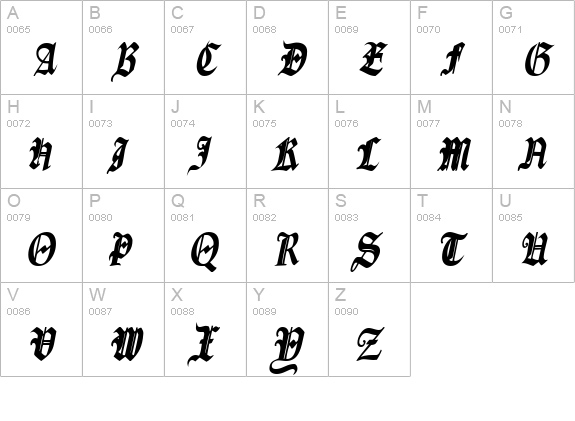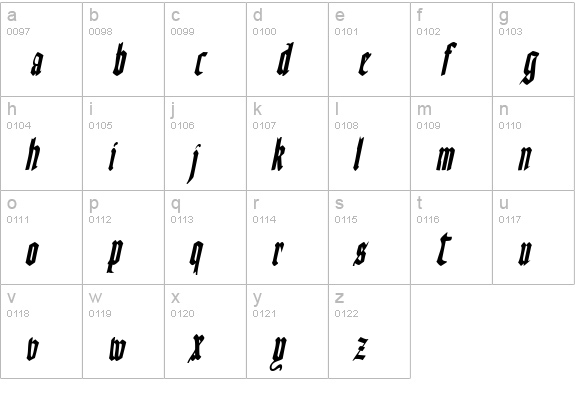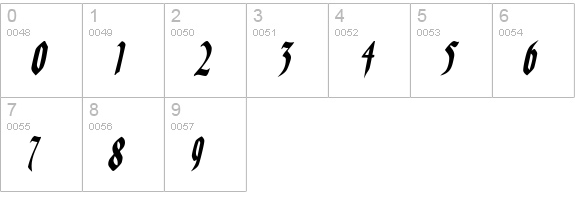
AinsworthSSK BoldItalic Font Details
AinsworthSSK BoldItalic font exudes a bold and stylish presence with its unique combination of strong lines and elegant curves. This font is perfect for making a statement in your designs, whether it be for logos, headlines, or any other creative project where you want to stand out. What makes AinsworthSSK BoldItalic even more appealing is that it is available for free download at FontsMarket.com. This means you can elevate your work with this striking font without any cost, making it accessible to all designers looking to add a touch of flair to their projects. Embrace the boldness and sophistication of AinsworthSSK BoldItalic font today and make a lasting impression with your designs. Download it for free at FontsMarket.com and let your creativity shine.